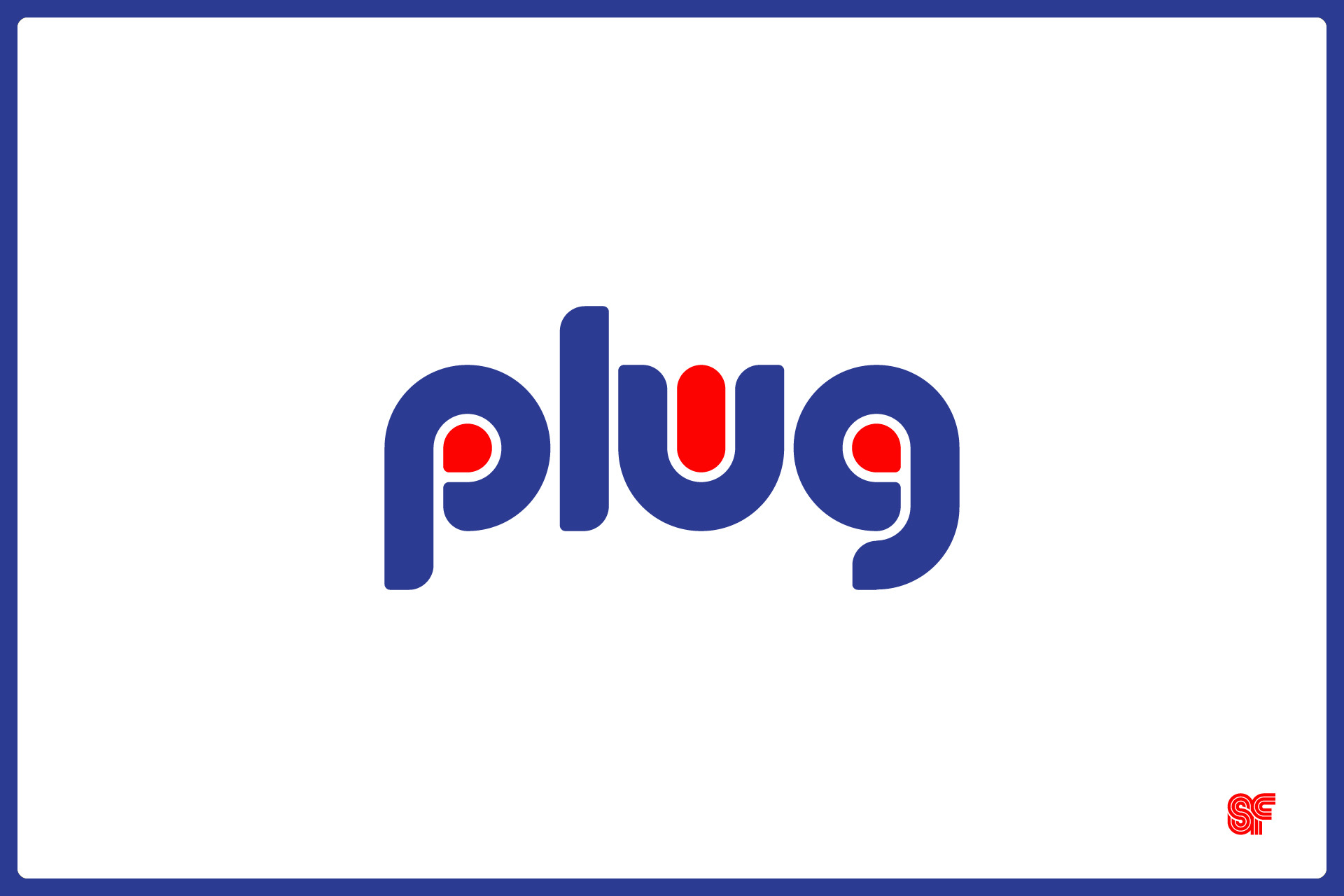
PLUG | Retro Display Font
NEW - Remastered for 2025!
Originally developed in 2015 by Superfried, Plug is an experimental display typeface showcasing a unique curvy design with distinctive ‘plugs’ integrated into all glyph counters. With its retro aesthetic and chunky structure, Plug delivers a high-impact visual experience, making it perfect for branding, editorial projects, and web design.
The 2025 remaster includes refined character designs and enhanced spacing, ensuring optimal legibility and style for modern applications. Elevate your projects with Plug's bold personality and versatile charm!